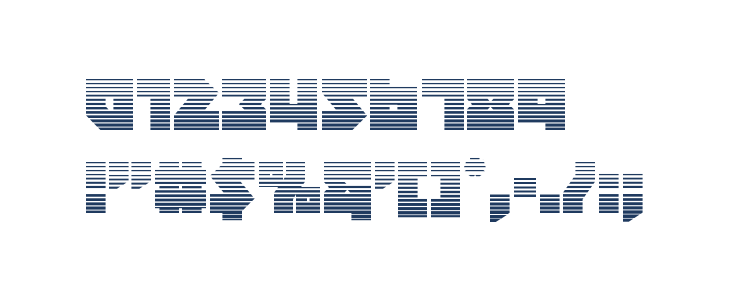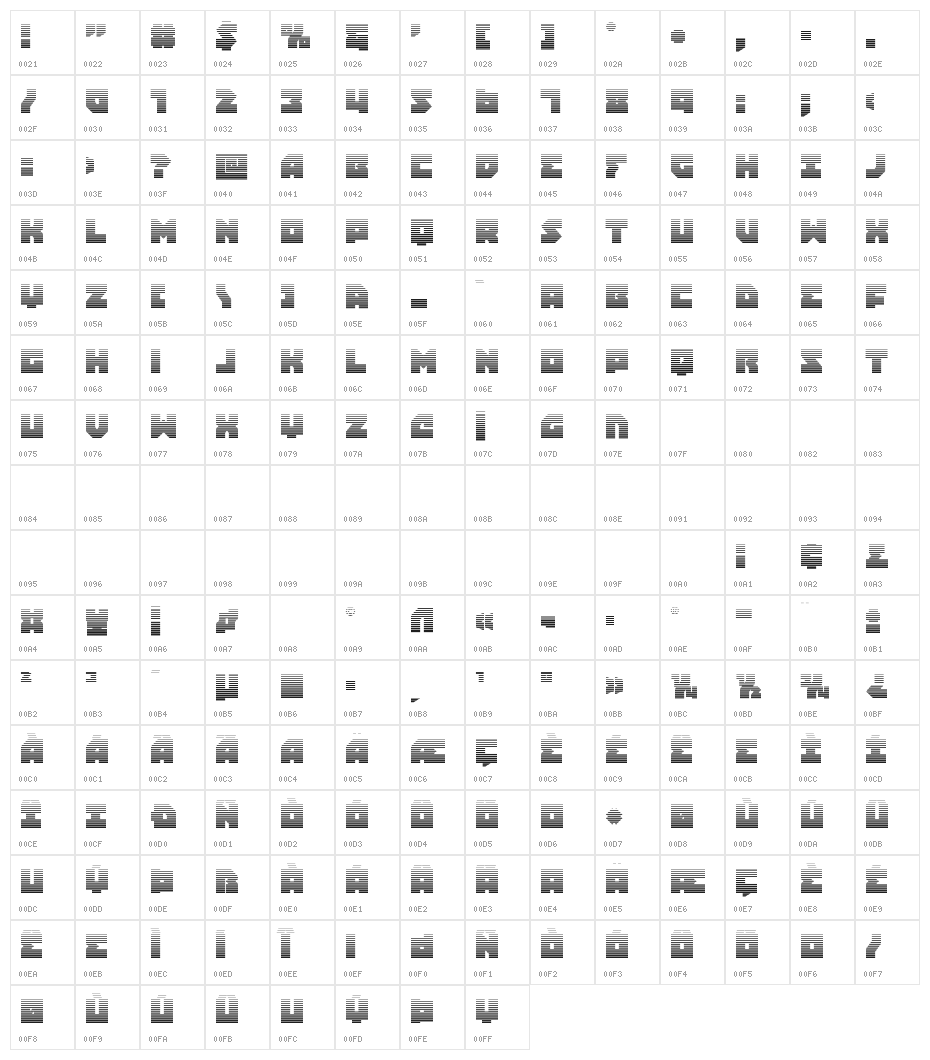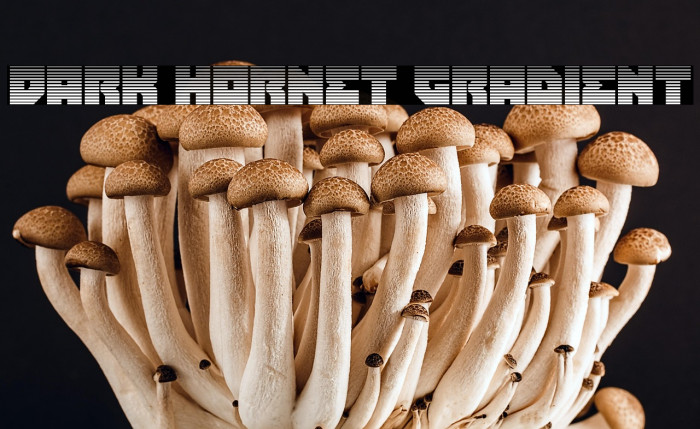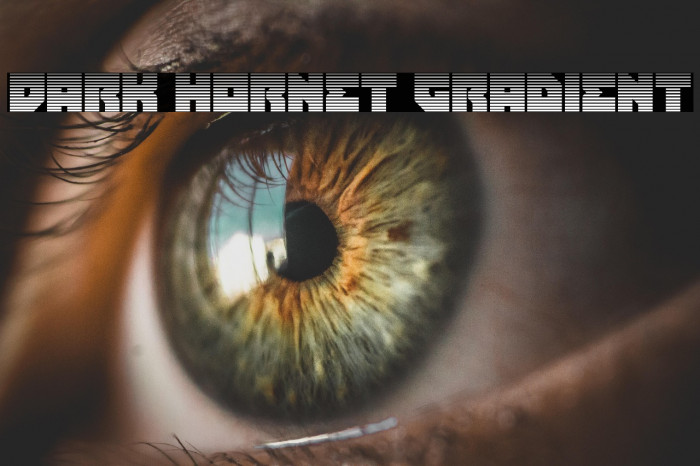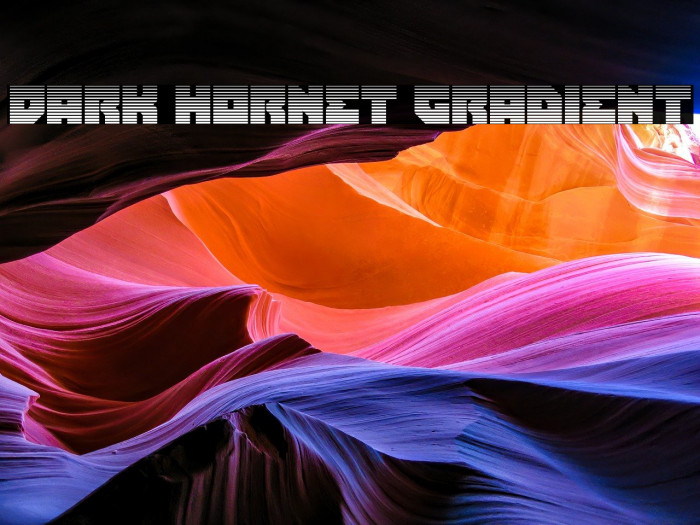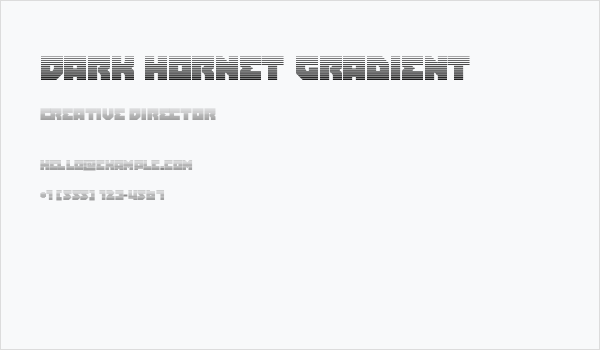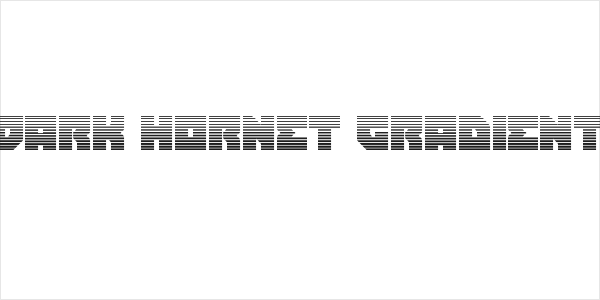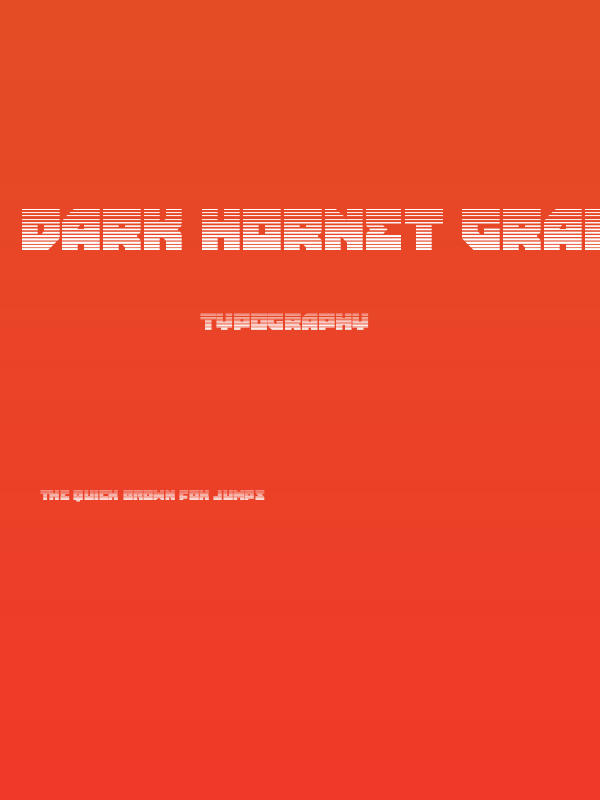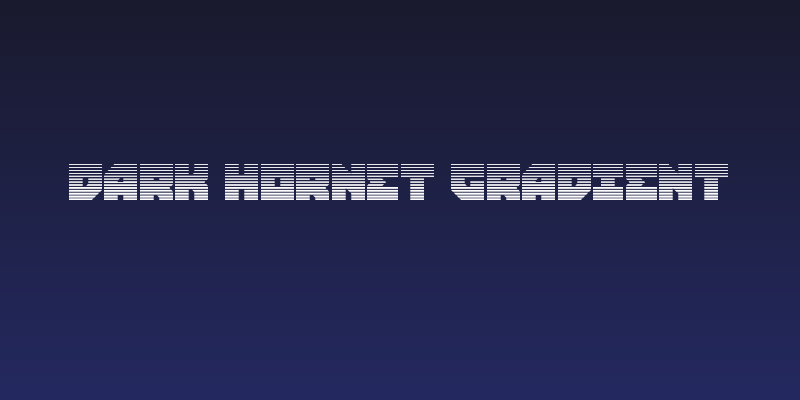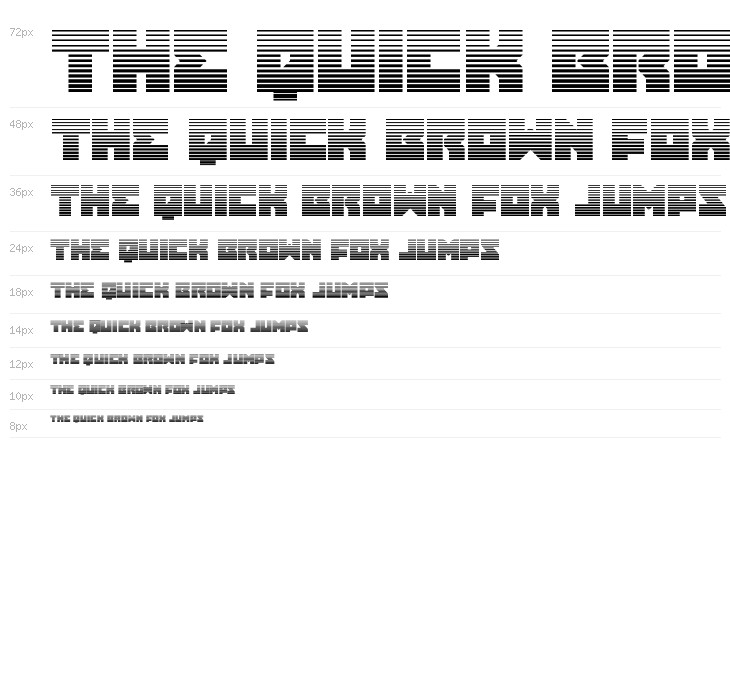
Dark Hornet Gradient Font
Dark Hornet Gradient Description
This font features a bold, futuristic design with a distinct striped pattern running horizontally across each character. The geometric shapes and sharp angles give it a modern, tech-inspired look. The uppercase and lowercase letters maintain a consistent style, with the stripes creating a sense of movement and energy. Numbers and special characters follow the same design principles, ensuring uniformity across the font. The unique style makes it stand out, suitable for projects that require a strong visual impact.
| Proposed Projects | Ideal for sci-fi themed posters, tech company logos, video game titles, and modern branding projects. |